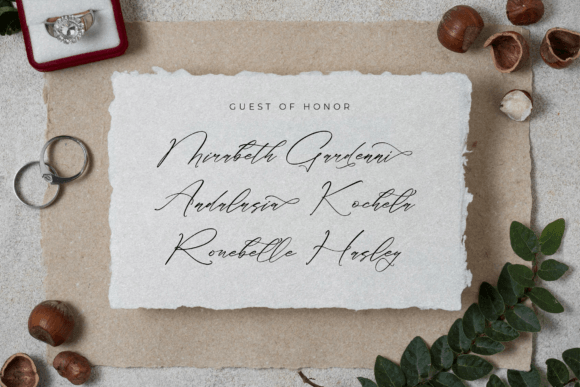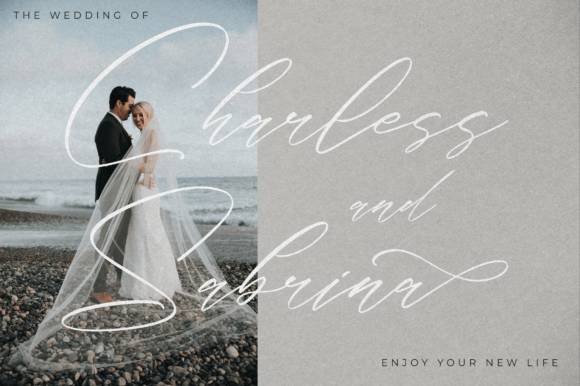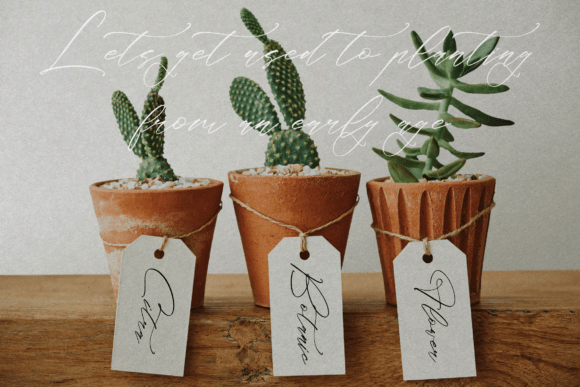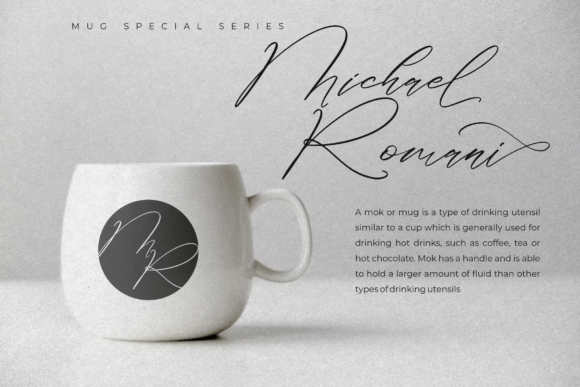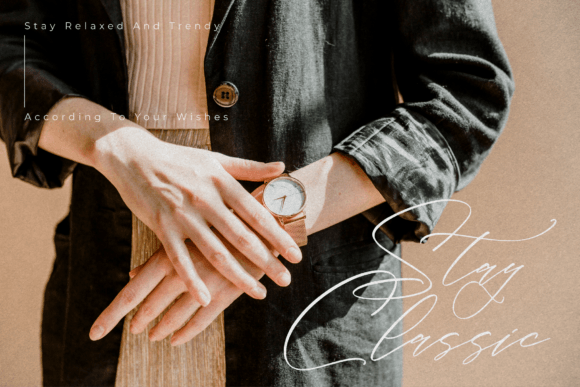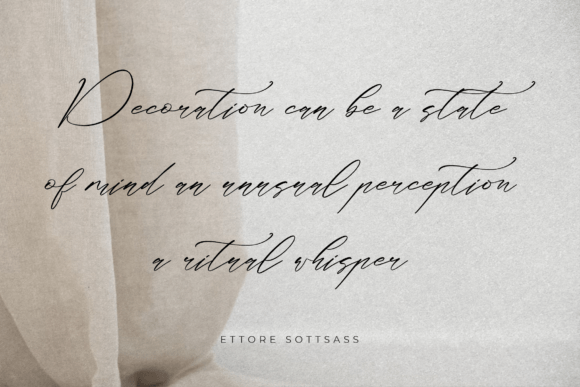
Introduction to Classthy Theriond Font
Have you ever been in the midst of a creative project, struggling to find the perfect font to bring your vision to life? The search can be a daunting task, with countless options available, but often, nothing seems quite right. That’s where Classthy Theriond Font comes in – a luxurious script that boasts a unique style and modern look, perfect for adding an air of sophistication to your design.
As a valuable resource for designers, Classthy Theriond Font offers a high-quality solution for those seeking a truly elegant and luxurious aesthetic. With its versatility and modern appeal, this typeface is ideal for a wide range of applications, from logo design and book titles to magazine covers and fashion branding. And the best part? It’s available for free download, making it an accessible design resource for creatives of all levels.
Key Features of Classthy Theriond Font
- Unique, high-quality font design ideal for creative projects requiring a distinctive look.
- Supports a transparent background, allowing for seamless integration with various design elements.
- Features a large character set, including uppercase and lowercase letters, numbers, and punctuation marks.
- Designed with high resolution in mind, making it suitable for use in a variety of applications, from print to digital media.
Honest Review: Classthy Theriond Font
I recently stumbled upon the Classthy Theriond Font while searching for a unique design resource for a creative project. I was immediately drawn to its quirky, hand-drawn feel, which I think would be perfect for a retro-themed design.
One of the things that really stands out about this font is its flexibility. It’s available for free download, which is a major plus in my book. Plus, it’s super easy to use and comes with a transparent background, making it a great option for designers who like to have a little creative freedom.
Here are some of the things I like about the Classthy Theriond Font:
- ✨ Unique, hand-drawn feel that adds a personal touch to designs
- ✨ High quality, clear typography that’s easy to read
- ⚠️ Limited character set, which may not be suitable for longer blocks of text
- ⚠️ Not ideal for formal or professional designs, due to its playful, informal feel
Overall, I think the Classthy Theriond Font is a great addition to any designer’s toolkit. Its unique feel and high quality make it a great choice for creative projects, and the free download option is a major bonus. Just be aware of its limitations, and use it in a way that suits its style.
Tips for Getting the Most Out of Classthy Theriond Font
For the best results, use Classthy Theriond Font in conjunction with other design elements, such as graphics and images. Experiment with different font sizes, colors, and styles to create a visually appealing design. You can also use it as a free download to enhance your creative project.
Classthy Theriond Font is ideal for use in creative projects, such as infographics, posters, and brochures. Its high-quality design makes it perfect for professional presentations, reports, and documents. With its transparent background, you can easily layer it over other design elements to create a unique and eye-catching look.
Alternatives to Classthy Theriond Font
Pacifico is a beautiful, elegant script font that’s perfect for creative projects that require a touch of sophistication. It’s ideal for use in logos, branding, and headings where a high-quality, handwritten feel is desired.
Pacifico offers a similar level of sophistication to Classthy Theriond Font, but with a more refined and polished appearance. It’s a great choice for designers looking for a versatile font that can be used in a variety of contexts.
Can I use the Classthy Theriond Font with a transparent background?
Yes, the Classthy Theriond Font includes a transparent background, making it easy to use in designs with complex backgrounds or layered compositions. This feature allows for a seamless integration of the font with your design, giving you more creative freedom and flexibility.